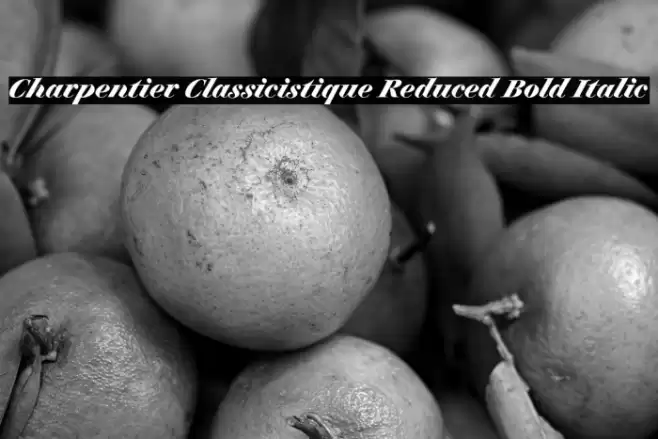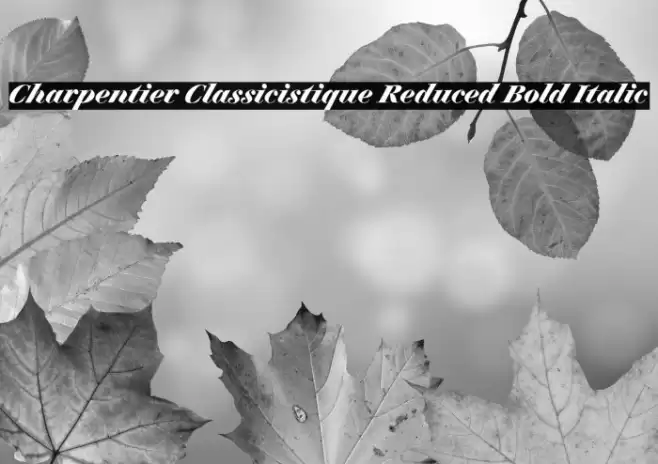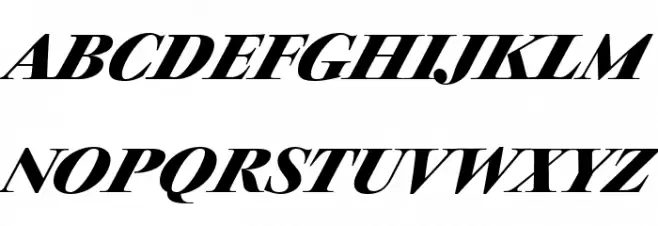
Charpentier Classicistique Reduced Bold Italic Font
Charpentier Classicistique Reduced Bold Italic Description
This font exudes a classic elegance with its bold and italicized style. The letters are characterized by their strong, sweeping curves and pronounced serifs, giving them a sense of movement and sophistication. The uppercase letters are particularly striking, with their elongated forms and sharp angles, while the lowercase letters maintain a graceful flow. The numbers and special characters are equally well-crafted, ensuring consistency across all glyphs. This font is ideal for projects that require a touch of refinement and tradition, yet it remains versatile enough for modern applications.
A bold, italic serif font with elegant curves and pronounced serifs from Uncategorized fonts.
- Proposed Projects: Ideal for luxury branding, wedding invitations, editorial design, and high-end product packaging.
- Overall Style: Classic
- Use Case: Headlines, Logos, Invitations